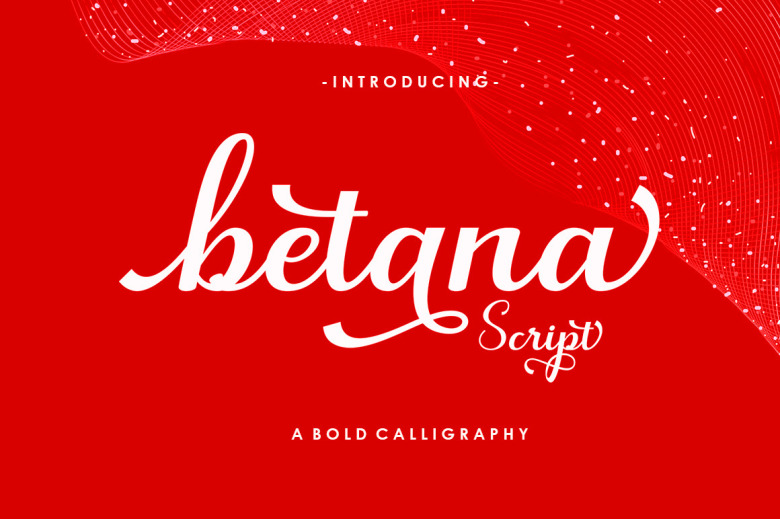
Betana Font
Featuring charming characters that New Typography calls scripts font Betana is lovely and playful. wren it Treat your most innovative ideas with it and see the difference! This font is PUA encoded which means that you can access all of the glyphs and swashes.
Betana Calligraphy Script Font